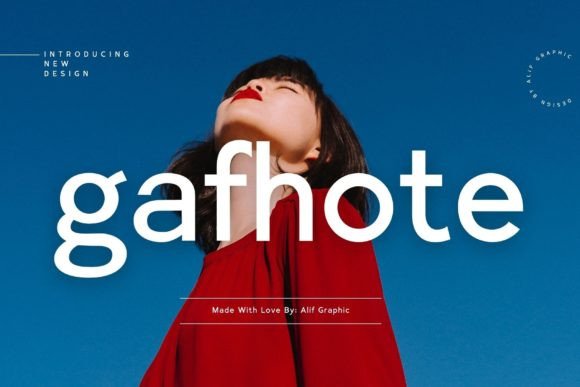
Embark on a typographic voyage with Gafhote Font, a sans serif masterpiece that will redefine your design horizons. Its impeccable structure and modern aesthetics make it the ultimate choice for web design, captivating audiences with its pristine clarity and timeless elegance.
With Gafhote Font, your designs will radiate sophistication, leaving a lasting impression on your audience. Its meticulous letterforms exude a sense of order and harmony, seamlessly blending into any layout without overpowering the content. Whether you're crafting website interfaces, digital marketing materials, or social media posts, Gafhote Font will elevate your designs with its understated yet striking presence.
Step into a world of creativity with Gafhote Font, where the boundaries of your imagination are the only limit. Its versatility is a designer's dream, adapting effortlessly to a myriad of design styles. From minimalist aesthetics to bold and vibrant compositions, Gafhote Font seamlessly integrates into your vision, becoming an integral part of your creative expression.
But the magic of Gafhote Font lies not just in its aesthetic brilliance but also in its remarkable functionality. Its crisp and legible letterforms ensure effortless readability across various screen sizes and devices, ensuring your message is conveyed with clarity and impact.
So, embark on a typographic adventure with Gafhote Font, the ultimate sans serif companion for your web design endeavors. Experience the fusion of form and function, where aesthetics and usability converge to create a truly captivating experience. Let your creativity soar and unleash the full potential of your designs with Gafhote Font, the font that will transform your vision into reality.